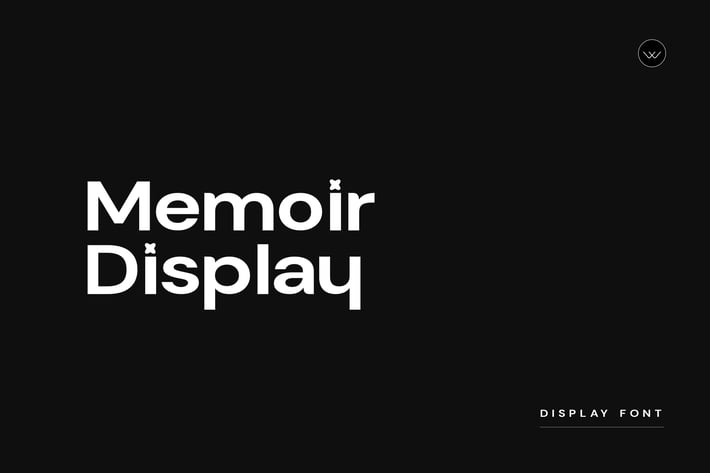
Memoir Modern Typeface
Memoir Modern Display Font
Memoir is a contemporary sans serif typeface that is suitable for the present day. Memoir is an amazing pick for editorial design, branding, headlines, or any other type of graphic design.